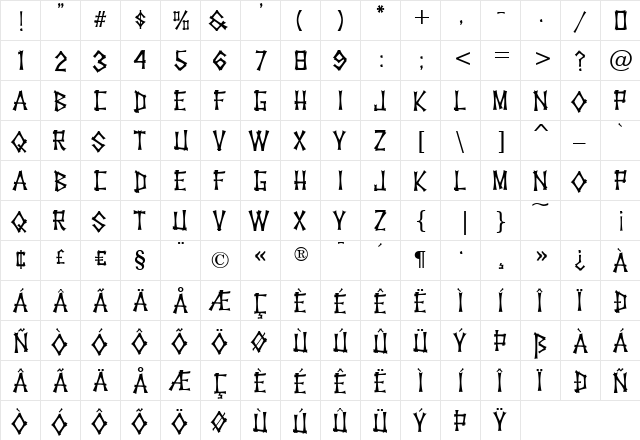
KonTikiHulaJF Regular Font Preview
KonTikiHulaJF Regular
Design Context for KonTikiHulaJF Typeface
KonTikiHulaJF is a composed and adaptable typeface that performs quietly and consistently across a wide range of design contexts.